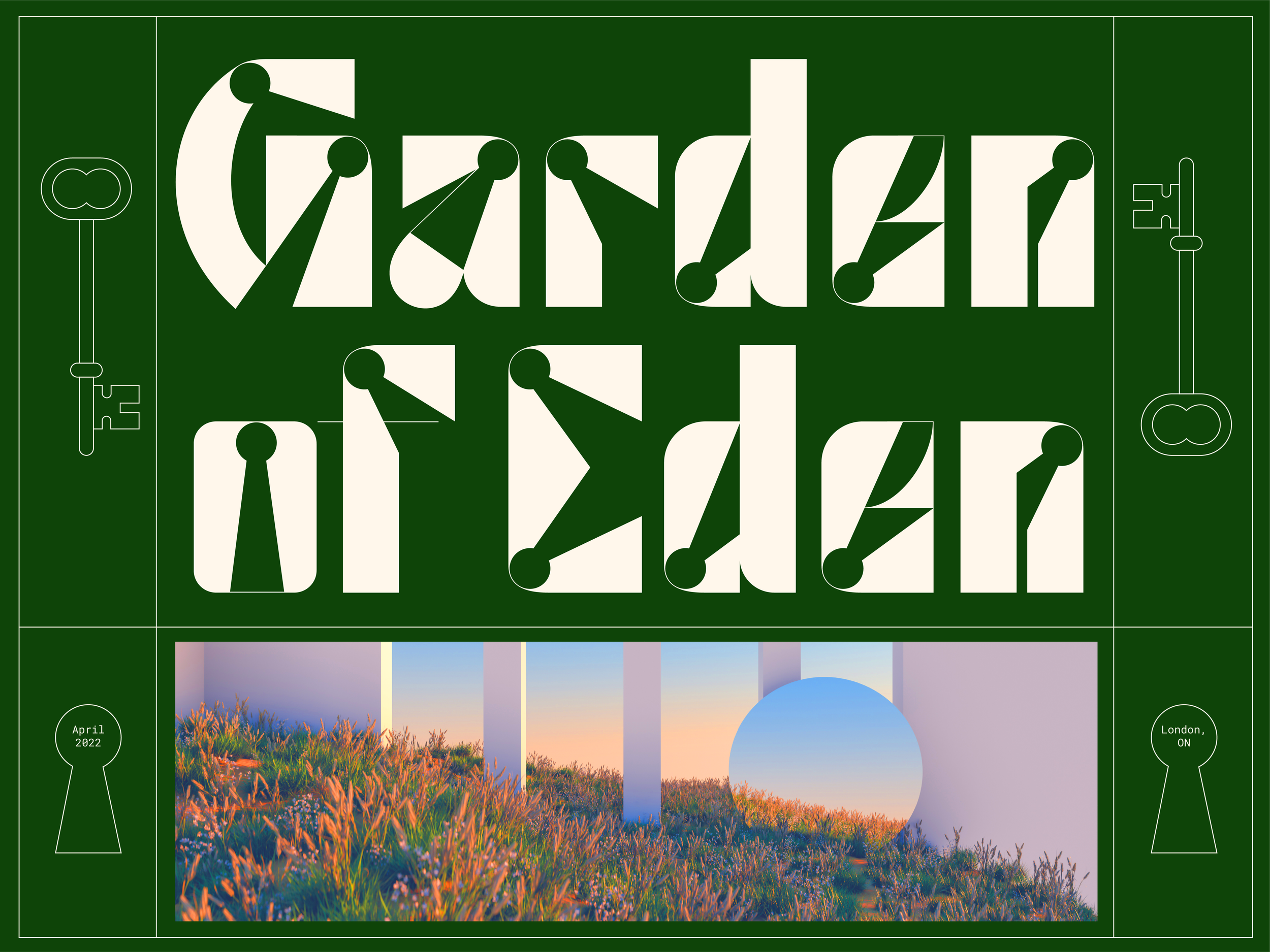
Keya is a bold display typeface that features the shape of a keyhole within each of its letterforms. Perfect for logos, titles, branding, and other large text, this eye-catching, artistic typeface is the key to visually-engaging design.